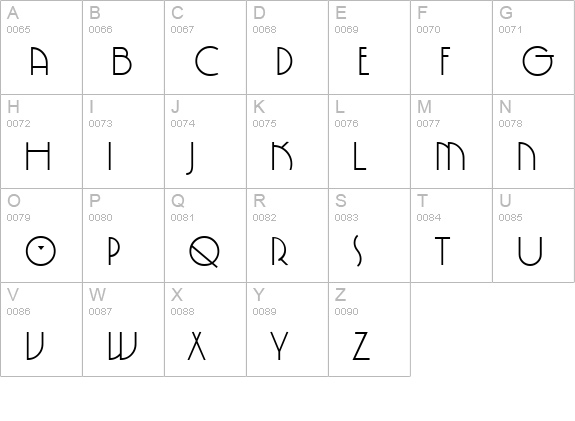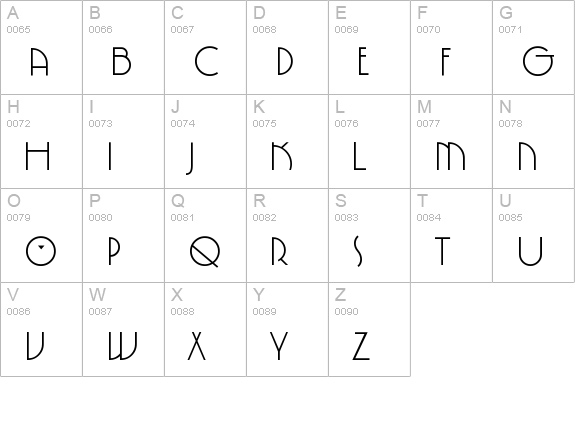
SpringGarden Regular Font Details
SpringGarden Regular is the standard, neutral variant in the SpringGarden typeface family \xE2\x80\x94 well suited to general body text, paragraphs, and standard typographic work.
SpringGarden Regular is a charming and versatile font that effortlessly captures the essence of springtime beauty. With its delicate and graceful letterforms, this font exudes a sense of freshness and vibrancy, making it perfect for a wide range of design projects. The SpringGarden Regular font is meticulously crafted, ensuring that each character is visually pleasing and harmoniously balanced. Its smooth curves and elegant strokes give it a refined yet approachable feel, making it equally suitable for both formal and informal designs. This font's versatility is further enhanced by its wide range of glyphs and ligatures, allowing for creative and unique typographic compositions. Whether you're designing a logo, brand identity, packaging, or any other creative project, SpringGarden Regular will elevate your design and make it stand out. What sets SpringGarden Regular apart is not only its exceptional design but also its availability as a free download. Yes, you heard that right! This font is freely available to download at FontsMarket.com. Now, you can enjoy the beauty and versatility of SpringGarden Regular without breaking the bank. So why wait? Embrace the beauty of spring and infuse your designs with a touch of elegance and freshness. Download SpringGarden Regular today from FontsMarket.com and let your creativity blossom!